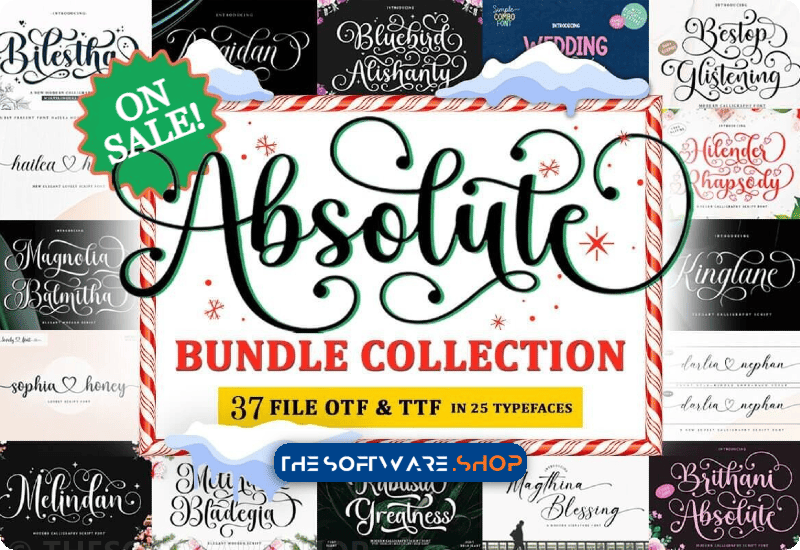
If you’re a designer, marketer, or creative enthusiast, you understand the significance of having a diverse and high-quality font collection at your disposal. This is where the Absolute Font Collection by Reyna Studio comes into play, offering a remarkable selection of 37 OTF and TTF files across 25 unique typefaces.
The Power of Variety
The Absolute Font Collection goes beyond the ordinary, offering a spectrum of styles from Script Fonts to Modern and Elegant ones. Each font is meticulously designed, ensuring a plethora of glyphs and comprehensive international language support.
Your Crafting Possibilities are Boundless
Premium Fonts, Premium Results
The premium fonts included in the Absolute Font Collection are not just names on a list; they are tools that can elevate your designs to new heights. Whether you are working on greeting cards, branding materials, posters, or T-shirts, this bundle provides the versatility needed to leave a lasting impression.
In conclusion, the Absolute Font Collection by Reyna Studio stands as a testament to the fusion of creativity and functionality. By incorporating these premium fonts into your projects, you not only save on expenses but also unlock a world of design possibilities.